Industry Font: A Gateway to Professional Typography
Industry Font
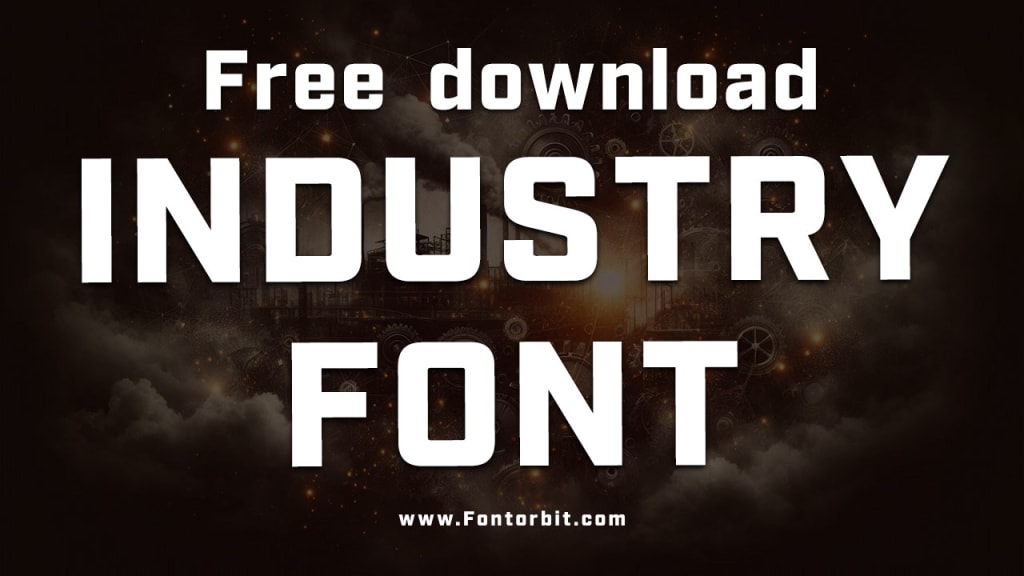
Typography is a powerful tool that communicates style, tone, and professionalism. In the realm of graphic design, branding, and content creation, the choice of fonts can make or break a project. Among the array of font families, "Industry Font" stands out as a versatile and impactful choice. This article delves into the origins, characteristics, applications, and advantages of using Industry Font in professional settings.
What is Industry Font?
Industry Font refers to a group of sans-serif typefaces designed to convey strength, reliability, and modernity. These fonts are often characterized by clean lines, geometric shapes, and uniform spacing. Designed for maximum legibility and a contemporary aesthetic, Industry Font is widely used in branding, advertising, and corporate communications.
Key Characteristics of Industry Font
Geometric Precision: Most Industry Fonts feature sharp edges and symmetrical forms, giving them a polished and professional appearance.
Versatility: The clean and uncluttered design allows them to adapt seamlessly to a variety of contexts, from digital screens to printed materials.
Neutrality: Their minimalistic style ensures they do not overpower other design elements, making them ideal for multi-faceted applications.
Scalability: These fonts retain clarity and legibility across different sizes, whether used in headlines or body text.
Applications of Industry Font
Corporate Branding: Many corporations prefer Industry Fonts for logos and branding materials due to their professional and reliable appearance.
Web Design: With their high readability, Industry Fonts are perfect for user interfaces and web typography.
Advertising: Bold and modern, these fonts draw attention in advertisements without appearing overly decorative.
Product Packaging: Industry Fonts convey a sense of quality and innovation, making them suitable for consumer goods.
Editorial Design: They create a cohesive and polished look in magazines, brochures, and annual reports.
Popular Industry Fonts
Some widely recognized Industry Fonts include:
Helvetica: A timeless choice for corporate and minimalist designs.
Futura: Known for its geometric precision and modern appeal.
Gotham: Frequently used in advertising and branding for its bold and approachable feel.
Proxima Nova: A web-friendly font with a clean and versatile structure.
Advantages of Using Industry Font
Professionalism: These fonts exude a sense of competence and reliability.
Readability: Their clean lines ensure content is easy to read.
Modern Appeal: Industry Fonts align with contemporary design trends.
Brand Consistency: Their neutrality allows them to blend well with various design elements, maintaining brand identity.
Conclusion
Industry Fonts have become an indispensable asset in the world of design and branding. Their ability to balance professionalism with versatility makes them a favorite among designers and corporations alike.
Whether you are revamping a website, launching a product, or crafting a brand identity, Industry Fonts offer the clarity and impact needed to leave a lasting impression.
FAQs about Industry Font
Q1: What makes Industry Font different from other fonts?
Industry Fonts are known for their geometric precision, minimalistic style, and versatility, making them suitable for professional and contemporary designs.
Q2: Can Industry Fonts be used for both digital and print media?
Yes, their scalability and readability make them ideal for both digital and print applications.
Q3: Are Industry Fonts free to use?
While some Industry Fonts are free, others may require licensing for commercial use.
Q4: Which industries benefit most from Industry Fonts?
Industries such as technology, finance, advertising, and retail often use Industry Fonts to convey modernity and professionalism.
Q5: How do I choose the right Industry Font for my project?
Consider the tone and purpose of your project. Fonts like Helvetica and Futura suit formal designs, while Gotham and Proxima Nova work well for approachable and innovative aesthetics.
Q6: Can Industry Fonts be paired with other fonts?
Absolutely! They pair well with serif fonts for contrast or other sans-serif fonts for a cohesive look.